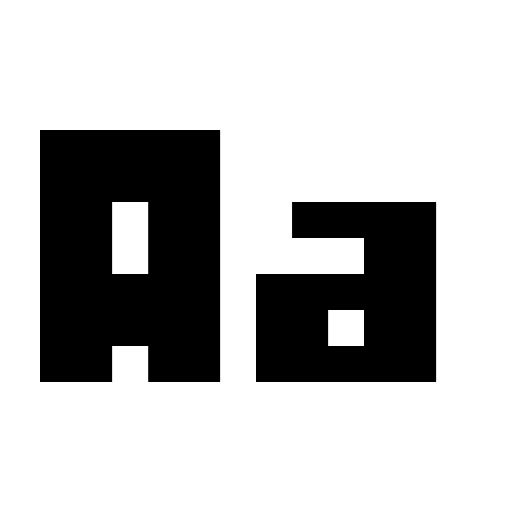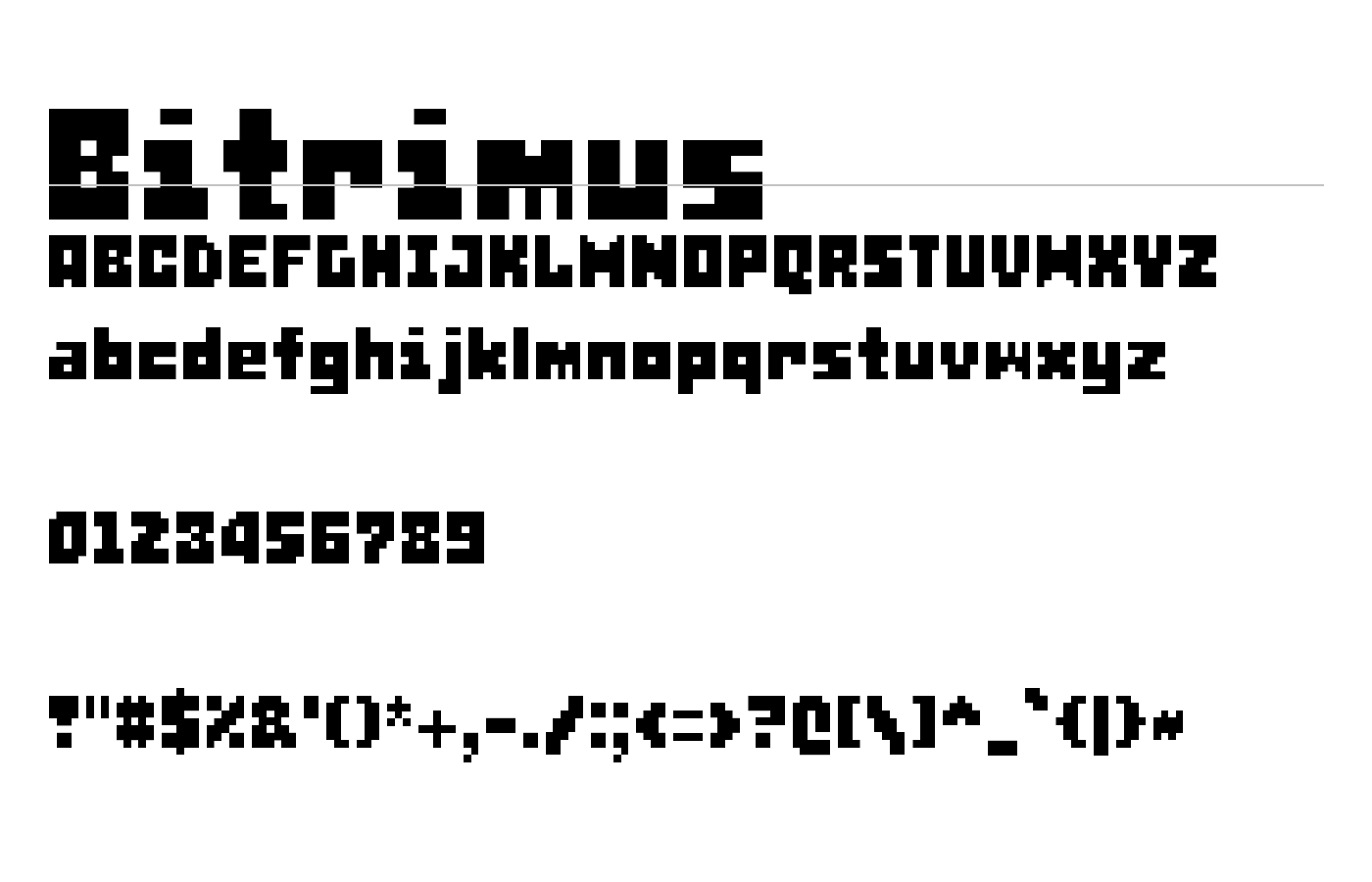
Bitrimus is a bold, blocky pixel-style sans serif font that evokes a retro, digital feel with its chunky, geometric letterforms and uniform stroke widths. Its squared shapes and strong presence make it perfect for video game graphics, tech branding, or any design seeking a nostalgic yet modern vibe. This font works best in headlines, logos, and creative projects where a distinct, eye-catching style is needed.
Bitrimus Font
About Bitrimus Font